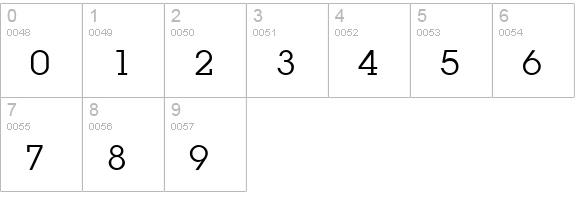
Lapland Regular is the standard, neutral variant in the Lapland typeface family \xE2\x80\x94 well suited to general body text, paragraphs, and standard typographic work.
Lapland Regular font is a stunning typeface that exudes elegance and sophistication with its sleek lines and graceful curves. This font is the perfect choice for adding a touch of modernity to any design project, whether it's for branding, advertising, or creating eye-catching headlines. With its clean and legible letterforms, Lapland Regular font ensures readability across various mediums, making it suitable for both print and digital applications. Its versatility allows it to be used in a wide range of projects, from magazines and brochures to websites and social media graphics. One of the best things about Lapland Regular font is that it is free! Yes, you read that right. This amazing font is freely available to download at FontsMarket.com. Now you can elevate your designs without breaking the bank. Whether you're a professional designer or a hobbyist, Lapland Regular font is a must-have addition to your font collection. Its timeless appeal and contemporary style will surely make your designs stand out from the crowd. So why wait? Download Lapland Regular font today and unleash your creativity.